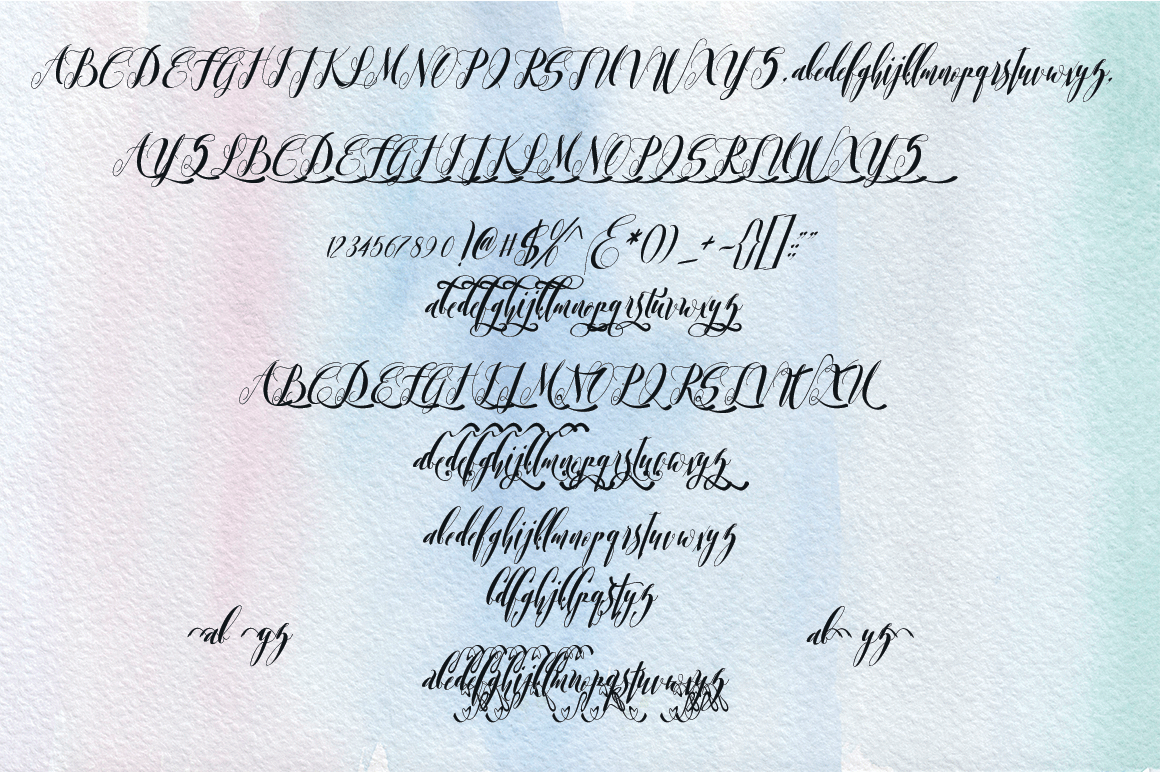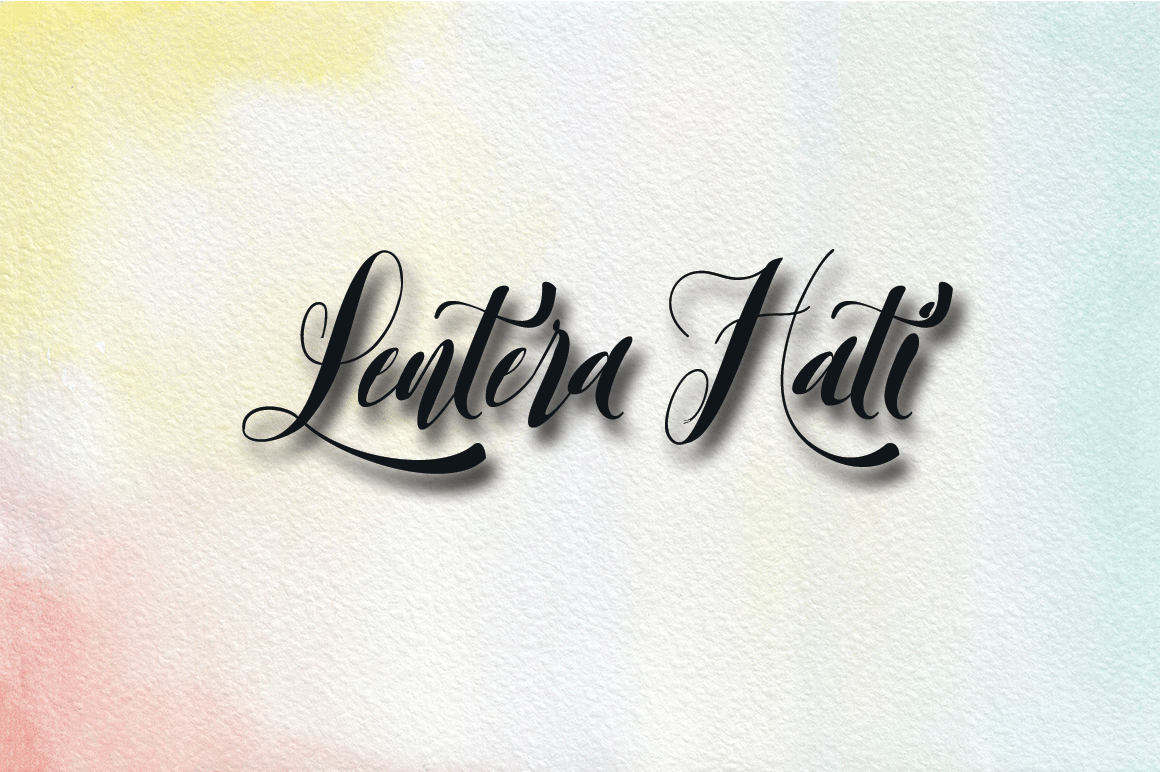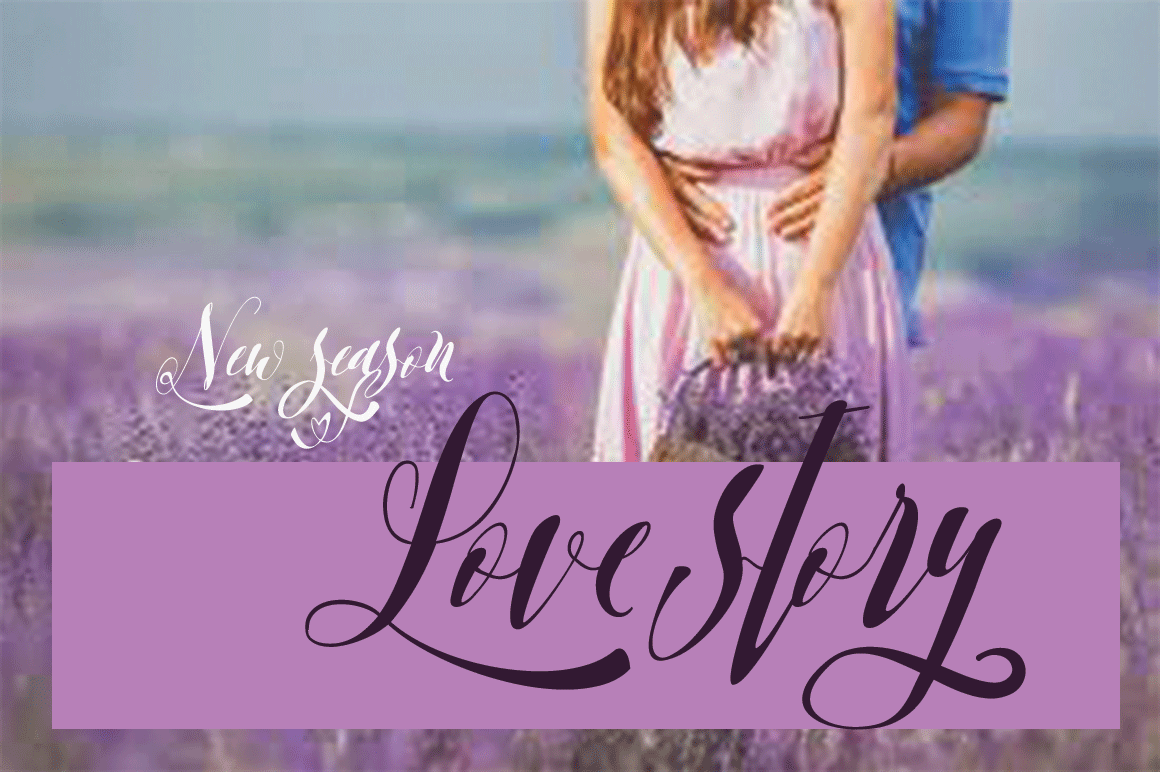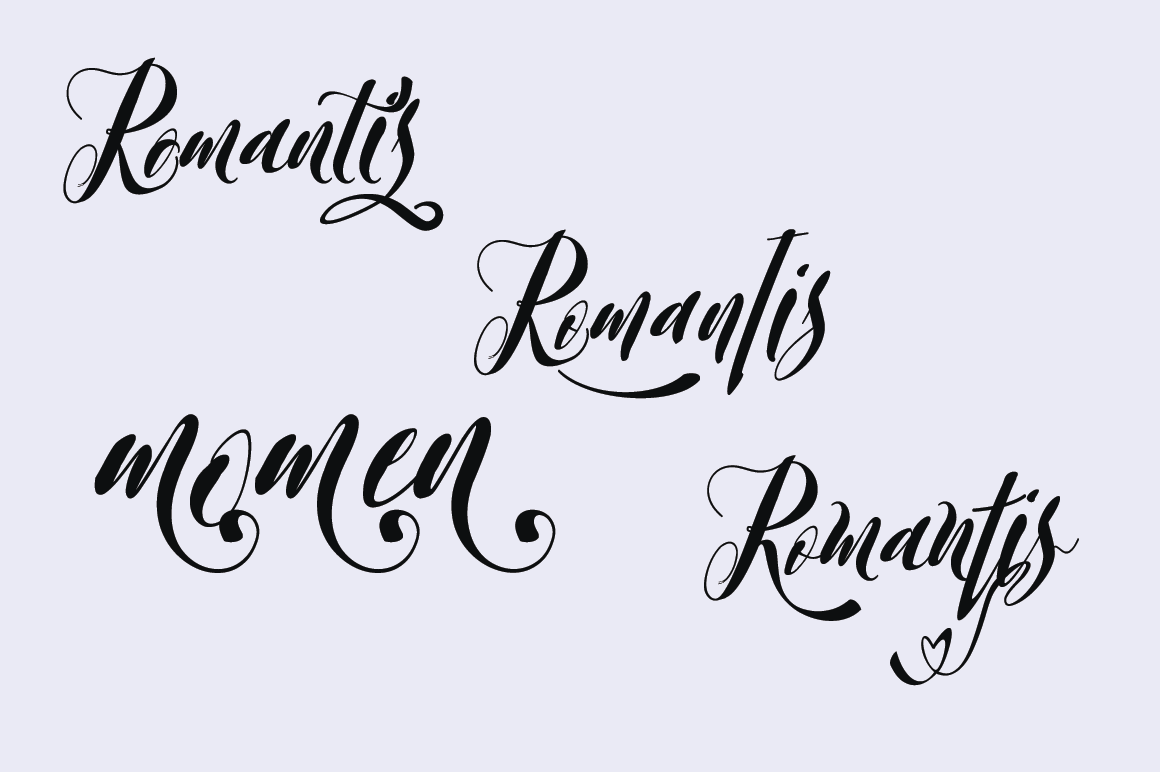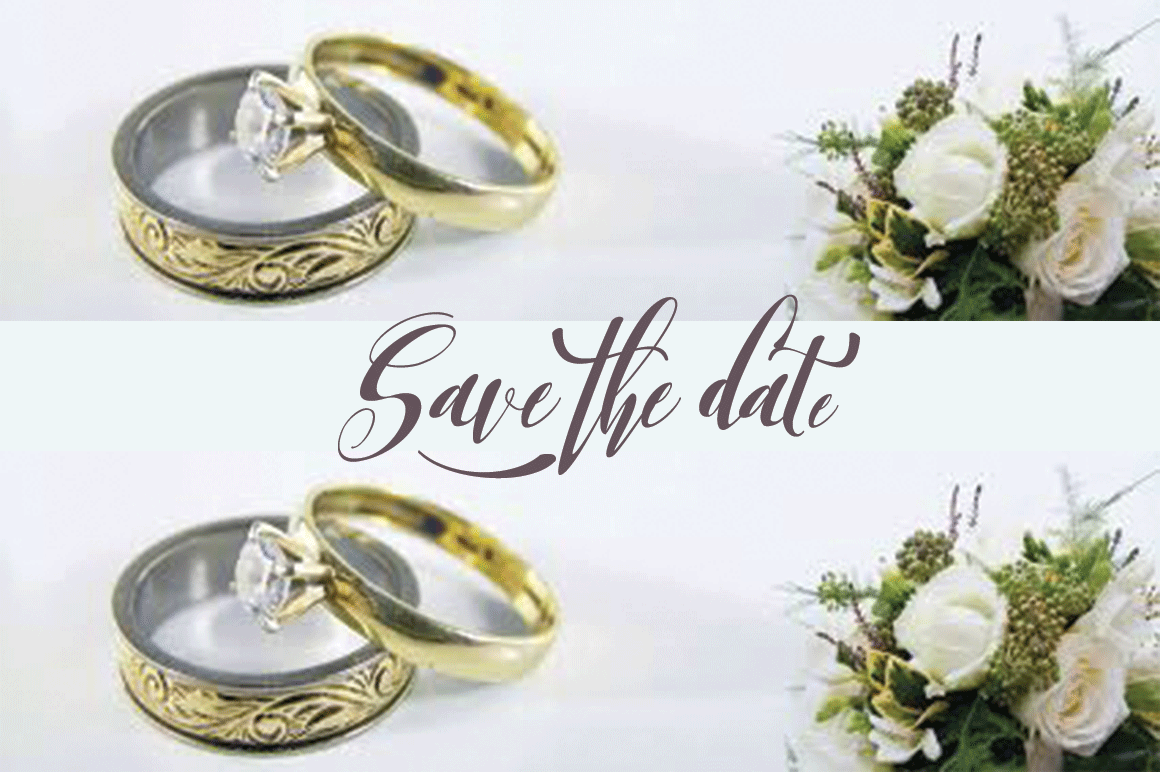
Introduction to Romantis Momen Font
Remember the thrill of finally finding the perfect font for your creative project? It’s that moment when everything falls into place, and your design starts to come alive. For designers, a high-quality font can be the difference between a good design and a great one.
Enter the Romantis Momen Font, a modern calligraphy font that seamlessly blends classical influences with a touch of sophistication. This versatile font is packed with extra features and bonuses, making it an invaluable resource for designers looking to elevate their creative projects. With a transparent background and a range of stylish options, the Romantis Momen Font is the perfect design resource for anyone looking to add a touch of elegance to their work.
Whether you’re a seasoned designer or just starting out, the Romantis Momen Font is a must-have for anyone looking to take their creative projects to the next level. And the best part? It’s available for free download, making it an accessible and valuable resource for designers of all levels.
Key Features of Romantis Momen Font
- High-quality design: Romantis Momen Font is crafted with precision and attention to detail, ensuring a polished look for your creative project.
- Transparent background: This font features a transparent background, allowing for seamless integration into your design and making it easier to customize.
- Unique script font style: The Romantis Momen Font boasts a unique script font style, perfect for adding a touch of elegance and sophistication to your design.
- Large character set: Romantis Momen Font includes a large character set, including uppercase and lowercase letters, numbers, and punctuation marks, making it a versatile design resource.
Honest Review: Romantis Momen Font
As a designer, I’m always on the lookout for unique and high-quality design resources. The Romantis Momen Font is one such find that caught my eye. This free download offers a lot of potential for creative projects.
- ✨ The font’s romantic and modern vibe makes it perfect for designs that need a touch of elegance.
- ✨ The transparent background allows for seamless layering and blending with other design elements.
- ✨ The font’s versatility makes it suitable for a wide range of creative projects, from wedding invitations to social media graphics.
Overall, I’m impressed with the Romantis Momen Font’s potential and versatility. While it may have some limitations, it’s a great resource for designers who want to add a touch of romance and elegance to their creative projects.
Tips for Getting the Most Out of Romantis Momen Font
For the best results, use Romantis Momen Font on a transparent background to create a clean and modern design. This font is ideal for creative projects, such as wedding invitations, birthday cards, or social media graphics. You can also use it as a design resource for your business, such as logos, brochures, or flyers.
Romantis Momen Font is perfect for various design projects, including: